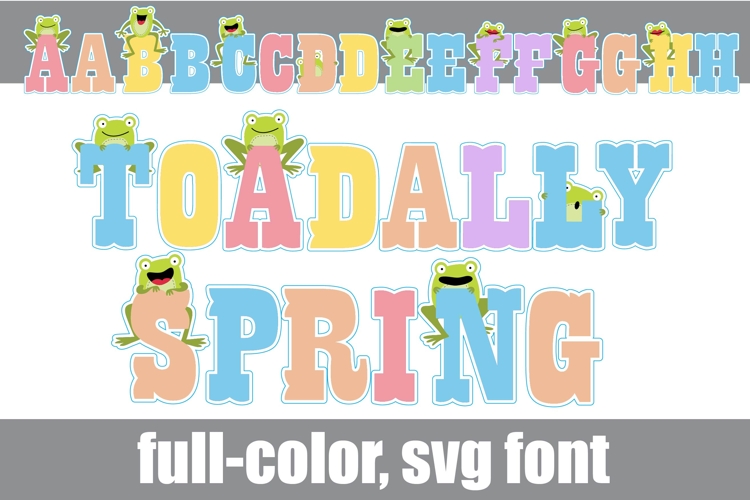
Toad-ally Spring Color Font
This full-color, serif font in springy palette with little frogs throughout. There is an alt case of additional colors of each letter that you can access through your system's character map.